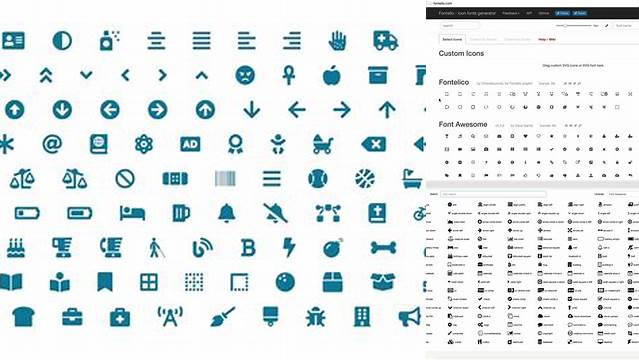
Font Awesome Free: The Ultimate Icon Library Guide
Are you looking to enhance your website's visual appeal and user experience? Look no further than Font Awesome Free, a treasure trove of scalable vector icons that can transform your web pages from drab to fab. In this comprehensive guide, we'll delve into the world of Font Awesome Free, exploring its features, benefits, and how you can seamlessly integrate it into your projects. So, buckle up and get ready to unleash the power of icons!
What is Font Awesome Free?
Font Awesome Free is a spectacular and widely used icon library that provides you with a vast collection of vector icons. Unlike traditional image-based icons, Font Awesome icons are scalable, meaning they look crisp and clear on any screen size, from tiny mobile devices to massive desktop monitors. This is because they are essentially fonts, rendered using CSS, giving you unparalleled flexibility in terms of size, color, and styling. Think of it as having a Swiss Army knife for your website's visual needs. Whether you need icons for navigation menus, social media links, buttons, or any other visual element, Font Awesome Free has got you covered. And the best part? It's completely free to use for both personal and commercial projects!
The beauty of Font Awesome Free lies in its simplicity and versatility. You don't need to be a design guru to incorporate these icons into your website. With just a few lines of code, you can add eye-catching visuals that enhance user engagement and make your website more intuitive. The library is constantly updated with new icons, ensuring that you always have access to the latest and greatest symbols. This continuous improvement makes Font Awesome Free a reliable and long-term solution for your icon needs. Imagine trying to manage hundreds of individual image files for your icons – it would be a nightmare! Font Awesome Free eliminates this headache by providing a centralized and easily manageable icon set. This not only saves you time and effort but also ensures consistency across your website.
Moreover, the scalability of vector icons is a game-changer. Traditional image-based icons can become pixelated and blurry when scaled up, especially on high-resolution displays. Font Awesome icons, on the other hand, maintain their clarity and sharpness regardless of size. This is crucial for creating a professional and polished look for your website. In a world where mobile devices account for a significant portion of web traffic, ensuring your website looks great on all screens is paramount. Font Awesome Free helps you achieve this effortlessly. The icons are also lightweight, which means they won't slow down your website's loading time. Page speed is a critical factor in user experience and SEO, so choosing Font Awesome Free is a smart move for both your visitors and your search engine ranking.
Why Use Font Awesome Free?
There are countless reasons why you should consider using Font Awesome Free for your web projects. Let's dive into some of the key benefits that make it a must-have tool for web developers and designers:
Scalability and Vector Graphics
As mentioned earlier, scalability is a major advantage of Font Awesome Free. The icons are vector-based, which means they can be scaled to any size without losing quality. This is crucial for responsive web design, where your website needs to look great on various devices and screen sizes. Forget about blurry icons – Font Awesome ensures your visuals are always sharp and crisp. Vector graphics are also incredibly efficient in terms of file size. They don't require the same level of detail as raster images, which means they load faster and consume less bandwidth. This is a significant benefit for website performance, as faster loading times lead to better user experience and improved search engine rankings.
Imagine you're designing a website that needs to be viewed on both small smartphones and large desktop monitors. With traditional image-based icons, you'd need to create multiple versions of each icon to ensure they look good on different screens. This can be a time-consuming and cumbersome process. Font Awesome Free eliminates this hassle by providing a single set of vector icons that can be scaled effortlessly. This not only saves you time but also ensures consistency across your website. The icons will look equally sharp and professional on every device, providing a seamless user experience.
Extensive Icon Library
Font Awesome Free boasts an extensive collection of icons, covering a wide range of categories and use cases. Whether you need icons for social media, navigation, user interface elements, or e-commerce, you'll likely find what you're looking for in the Font Awesome library. This vast selection means you don't have to rely on multiple icon sets or custom-designed icons, saving you time and effort. The library is constantly growing, with new icons being added regularly. This ensures that you always have access to the latest symbols and trends, keeping your website fresh and up-to-date. The sheer variety of icons available in Font Awesome Free is truly impressive. You can find icons for virtually any purpose, from basic symbols like arrows and checkmarks to more specialized icons for specific industries and applications.
Having a comprehensive icon library at your fingertips can significantly streamline your design workflow. Instead of spending hours searching for the perfect icon or creating one from scratch, you can simply browse the Font Awesome collection and find a suitable option within minutes. This allows you to focus on the bigger picture – the overall design and functionality of your website – rather than getting bogged down in the details of icon creation. Moreover, the consistency of the Font Awesome icon set ensures a cohesive and professional look for your website. All the icons are designed with a uniform style, which means they blend seamlessly together and create a visually harmonious user experience.
Easy to Use and Integrate
Font Awesome Free is incredibly easy to use and integrate into your web projects. Whether you're a seasoned developer or a beginner, you'll find the process straightforward and intuitive. The library provides various integration methods, including CSS, JavaScript, and even SVG sprites. This flexibility allows you to choose the method that best suits your project and workflow. The documentation is clear and concise, providing step-by-step instructions on how to get started and use the various features of Font Awesome. You'll find plenty of examples and code snippets to help you along the way. This makes it easy to learn and implement Font Awesome, even if you're not familiar with icon fonts or CSS frameworks.
Integrating Font Awesome into your website is as simple as adding a few lines of code to your HTML file. You can either link to the Font Awesome CSS file hosted on a CDN (Content Delivery Network) or download the files and host them yourself. Once you've added the CSS, you can use Font Awesome icons by simply adding the appropriate class names to your HTML elements. For example, to display a heart icon, you would use the class <i class="fas fa-heart"></i>. This simplicity is a major selling point of Font Awesome. You don't need to be a coding expert to add beautiful and functional icons to your website. The ease of use makes Font Awesome accessible to a wide range of users, from small business owners who want to create a professional website to experienced developers who need a reliable icon library.
Font Awesome Free is a powerful and versatile icon library that can significantly enhance your web projects. With its vast collection of scalable vector icons, easy integration, and free commercial license, it's a must-have tool for web developers and designers. Whether you're building a simple website or a complex web application, Font Awesome Free can help you create a visually appealing and user-friendly experience. So, go ahead and explore the world of Font Awesome – you won't be disappointed!